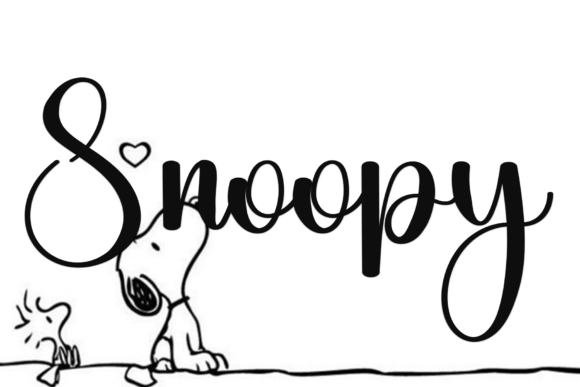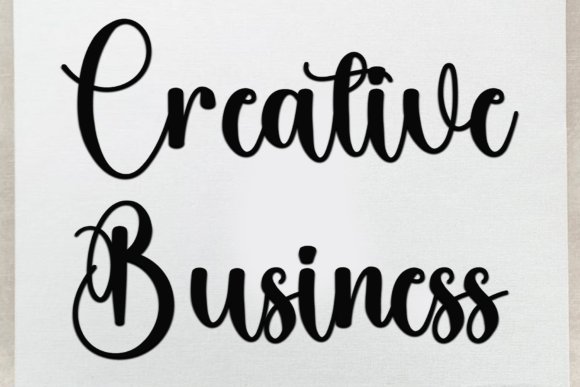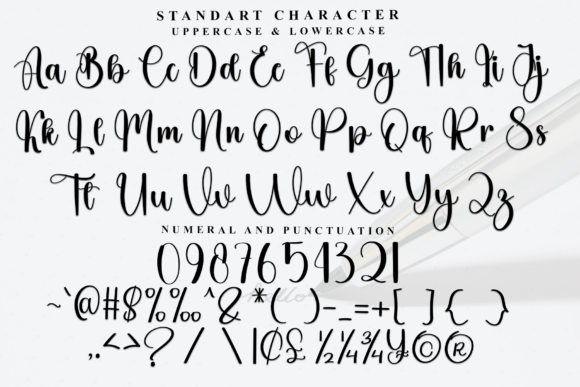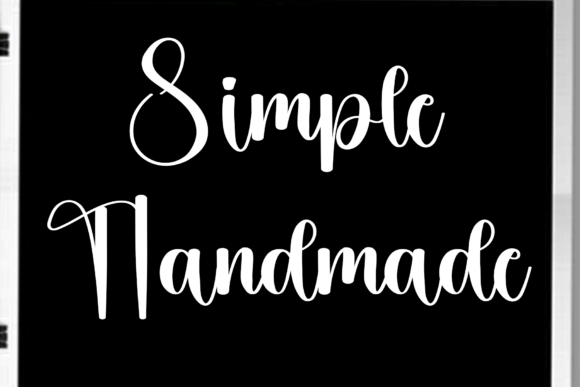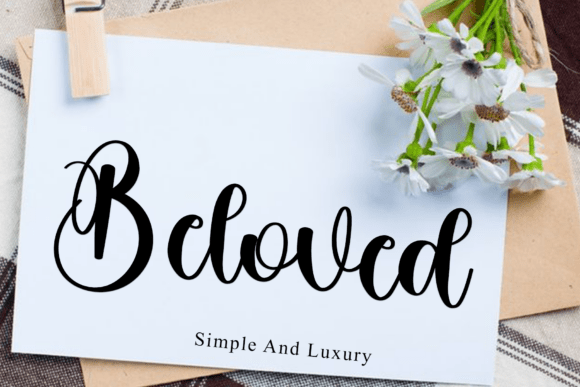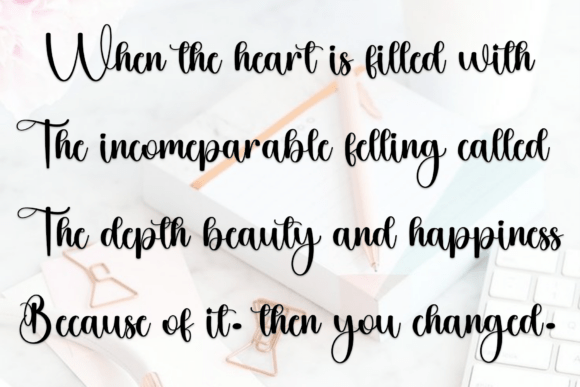
Introducing Bigdream Font: The Ultimate Holiday Typeface
As the holiday season approaches, designers and crafters are on the lookout for the perfect typography to add a touch of magic to their projects. Look no further than Bigdream Font, a festive and merry typeface that captures the spirit of the holidays. With its decorative elements and whimsical flair, this font is sure to bring a cheerful and nostalgic ambiance to your words.
The Perfect Font for Holiday Projects
Bigdream Font is specifically designed for holiday-themed projects, making it the perfect choice for greeting cards, gift tags, and festive decorations. Its unique and playful design will add a touch of enchantment to your typography, setting your projects apart from the rest. Whether you’re a designer, crafter, or DIY enthusiast, this font is sure to become a go-to in your collection.
Key Features of Bigdream Font
- PUA Encoded: Bigdream Font is PUA encoded, making it easy to access all of the amazing glyphs and ligatures. This means you can effortlessly add decorative elements to your typography, taking your designs to the next level.
- Decorative Elements: The font features a range of decorative elements, including swashes, flourishes, and other whimsical details. These elements can be used to add a touch of personality to your typography, making it truly unique.
- Whimsical Flair: Bigdream Font has a playful and whimsical feel, making it perfect for holiday-themed projects. Its curly and swirly details will add a touch of magic to your designs.
Why Choose Bigdream Font?
So why choose Bigdream Font for your holiday projects? Here are just a few reasons:
- Unique Design: Bigdream Font has a unique and playful design that will set your projects apart from the rest.
- Easy to Use: The font is PUA encoded, making it easy to access all of the amazing glyphs and ligatures.
- Versatile: Bigdream Font can be used for a range of holiday-themed projects, from greeting cards to gift tags and festive decorations.
Tips for Using Bigdream Font
Here are a few tips for getting the most out of Bigdream Font:
- Experiment with Glyphs: Don’t be afraid to experiment with the glyphs and ligatures in Bigdream Font. They can add a touch of personality to your typography and make it truly unique.
- Pair with Other Fonts: Bigdream Font can be paired with other fonts to create a unique and interesting look. Try pairing it with a bold sans-serif font for a striking contrast.
- Use for Headings: Bigdream Font is perfect for headings and titles. Its decorative elements and whimsical flair make it a great choice for adding a touch of magic to your typography.